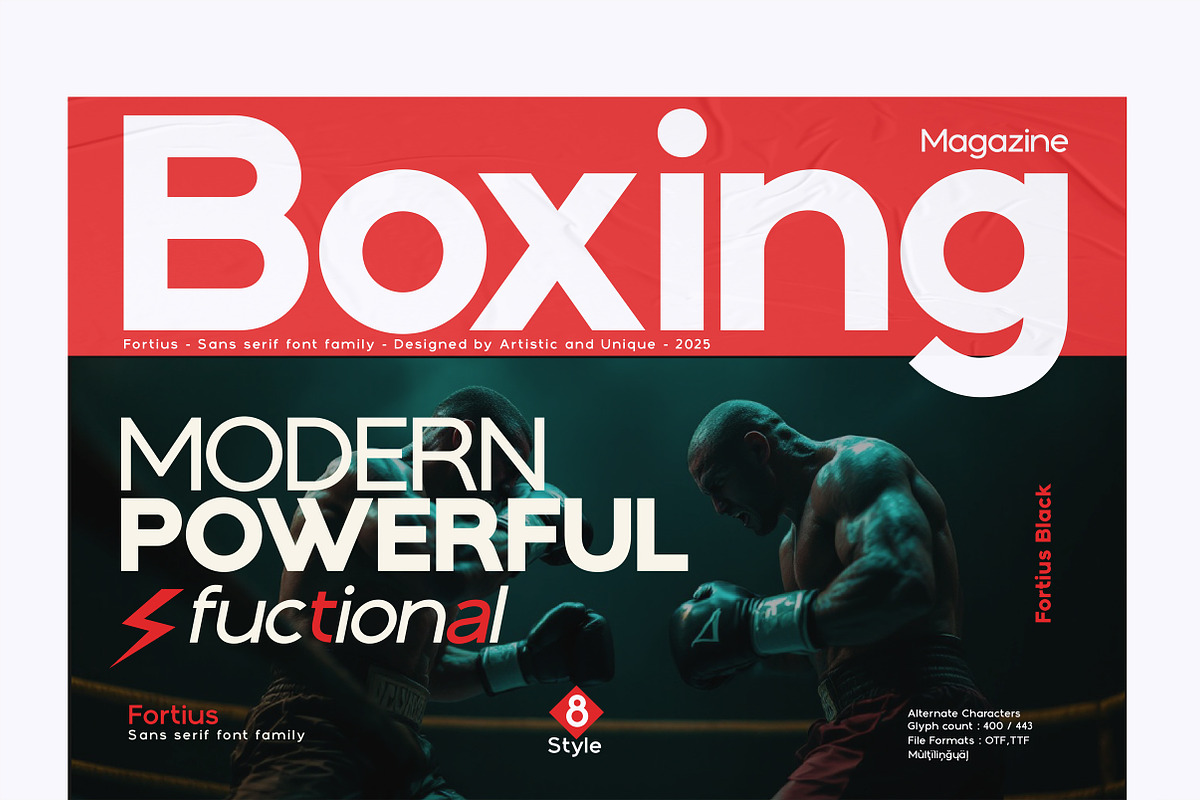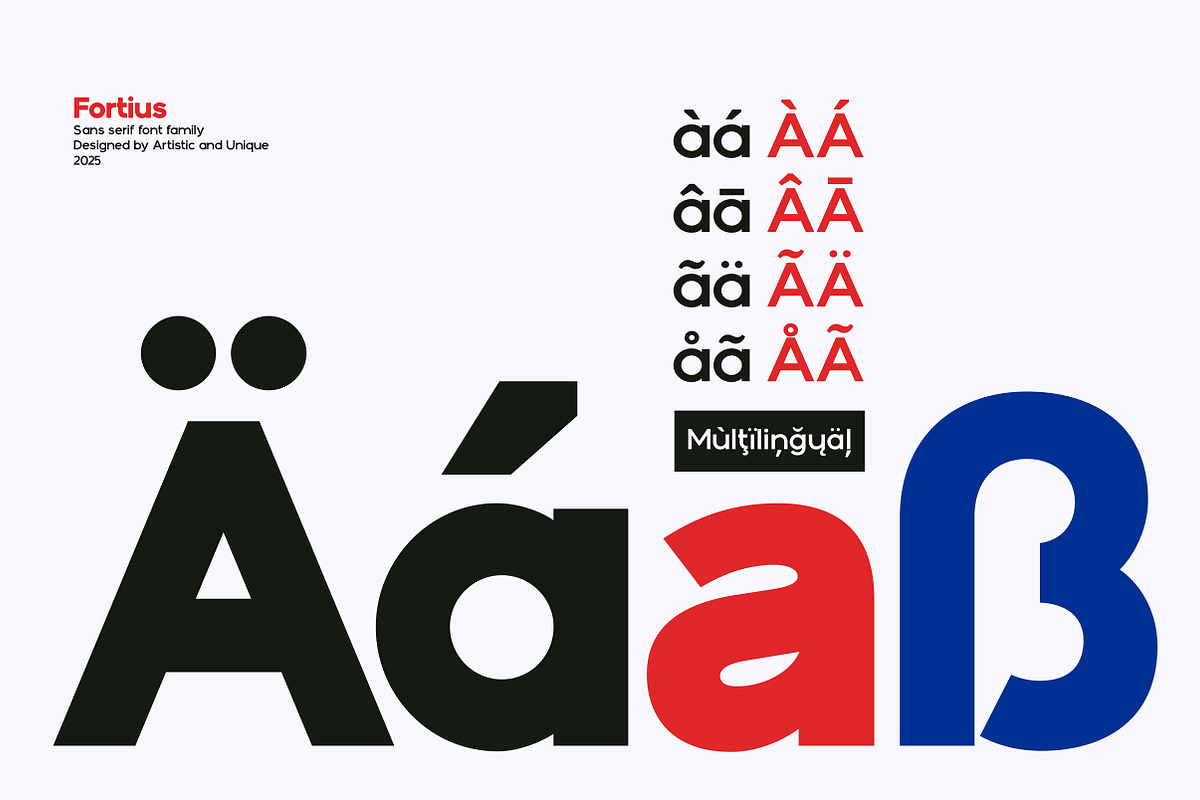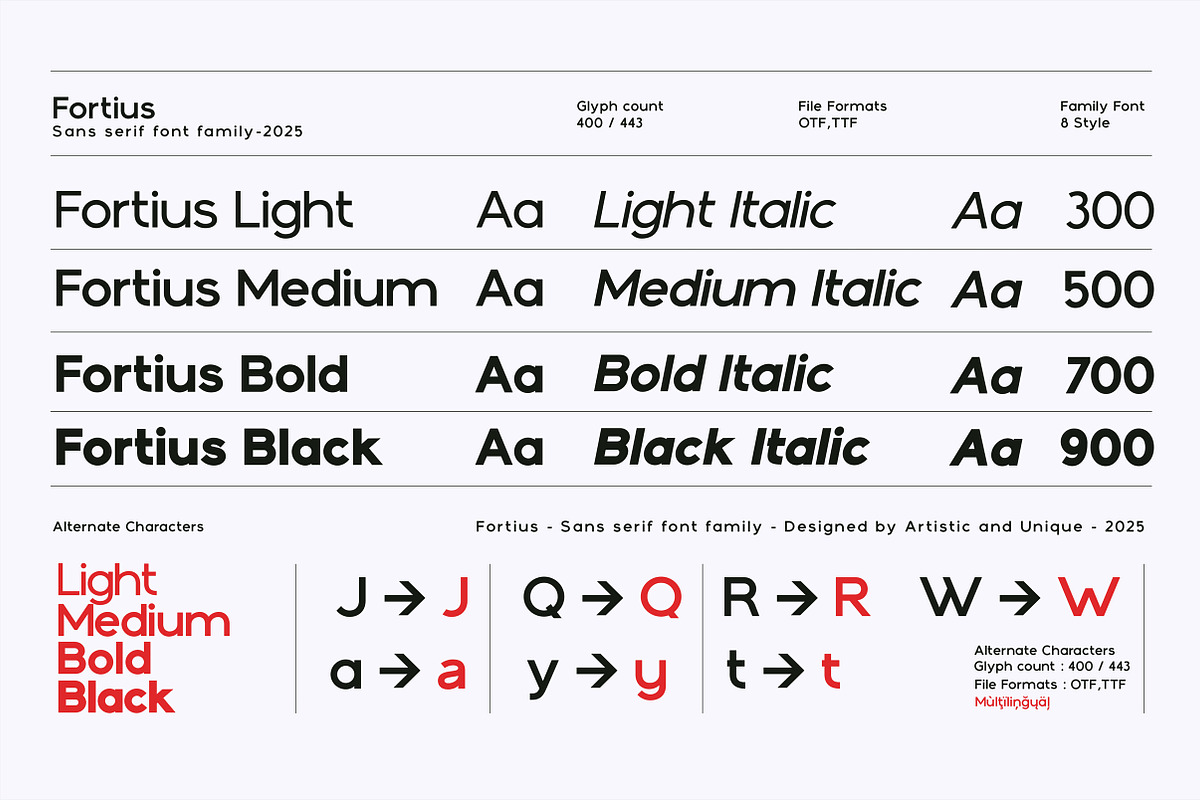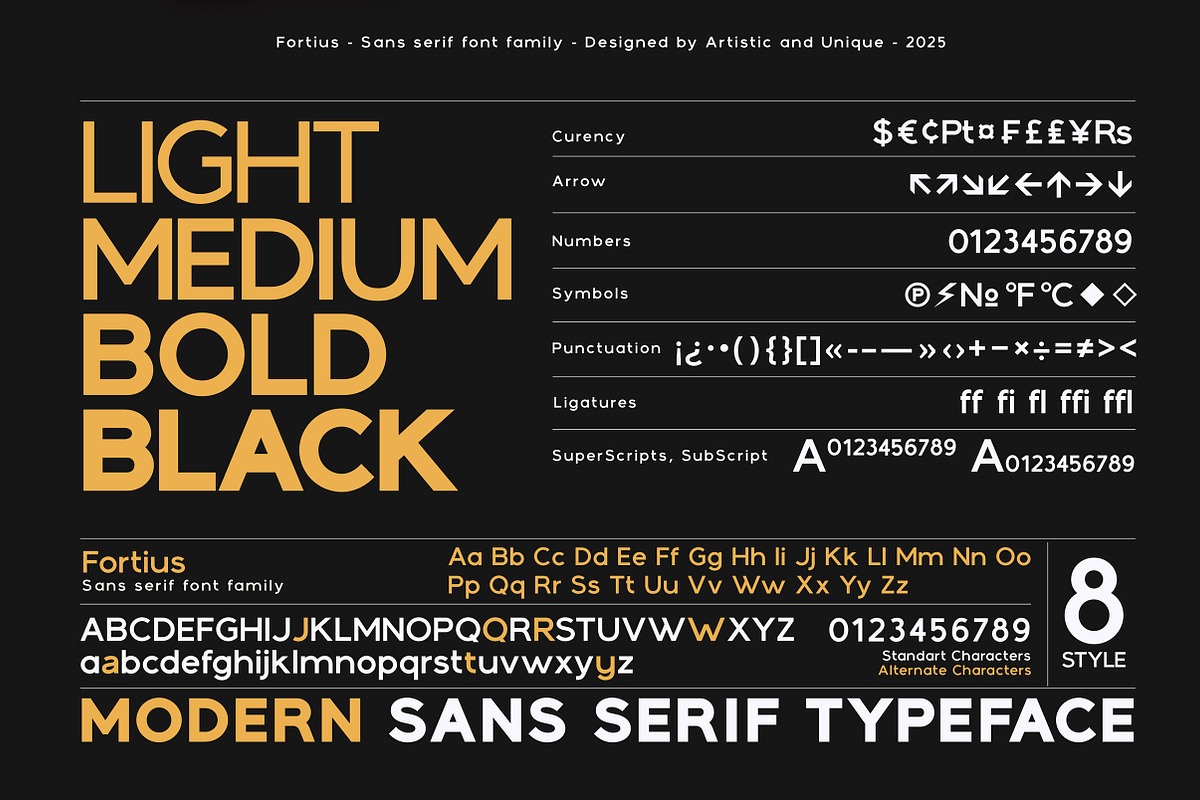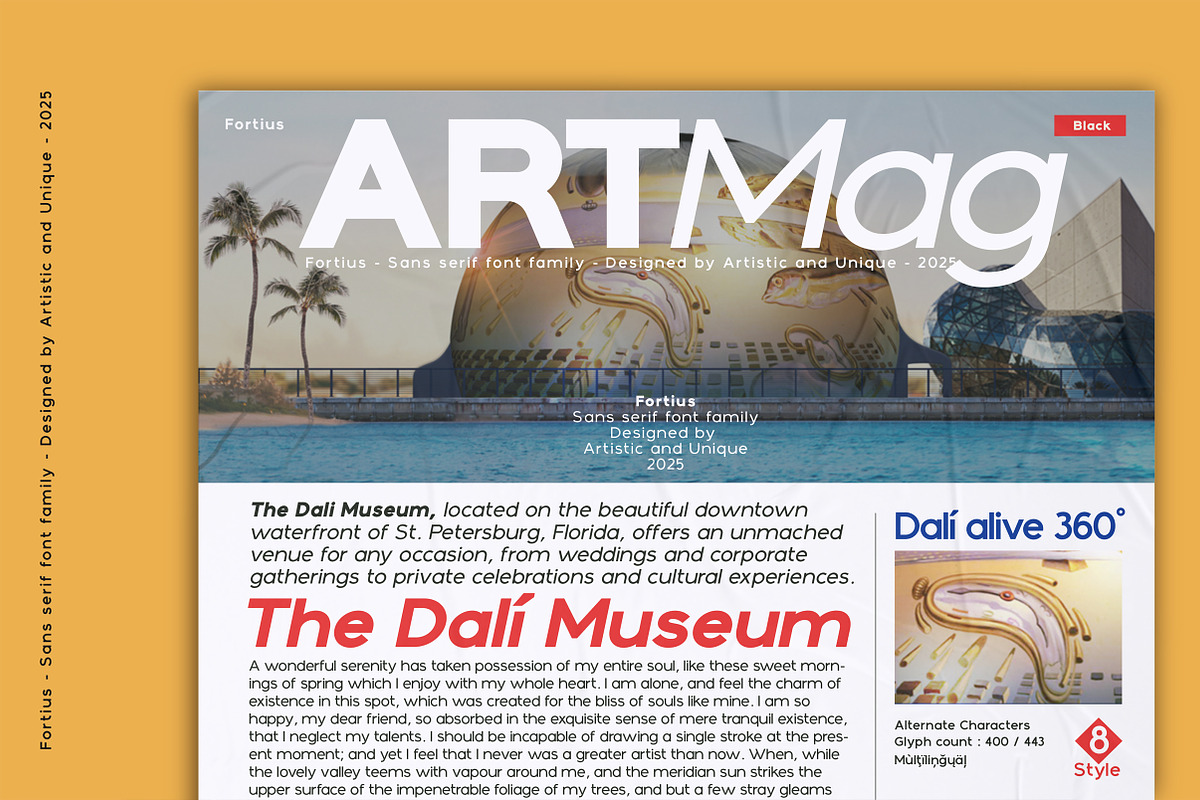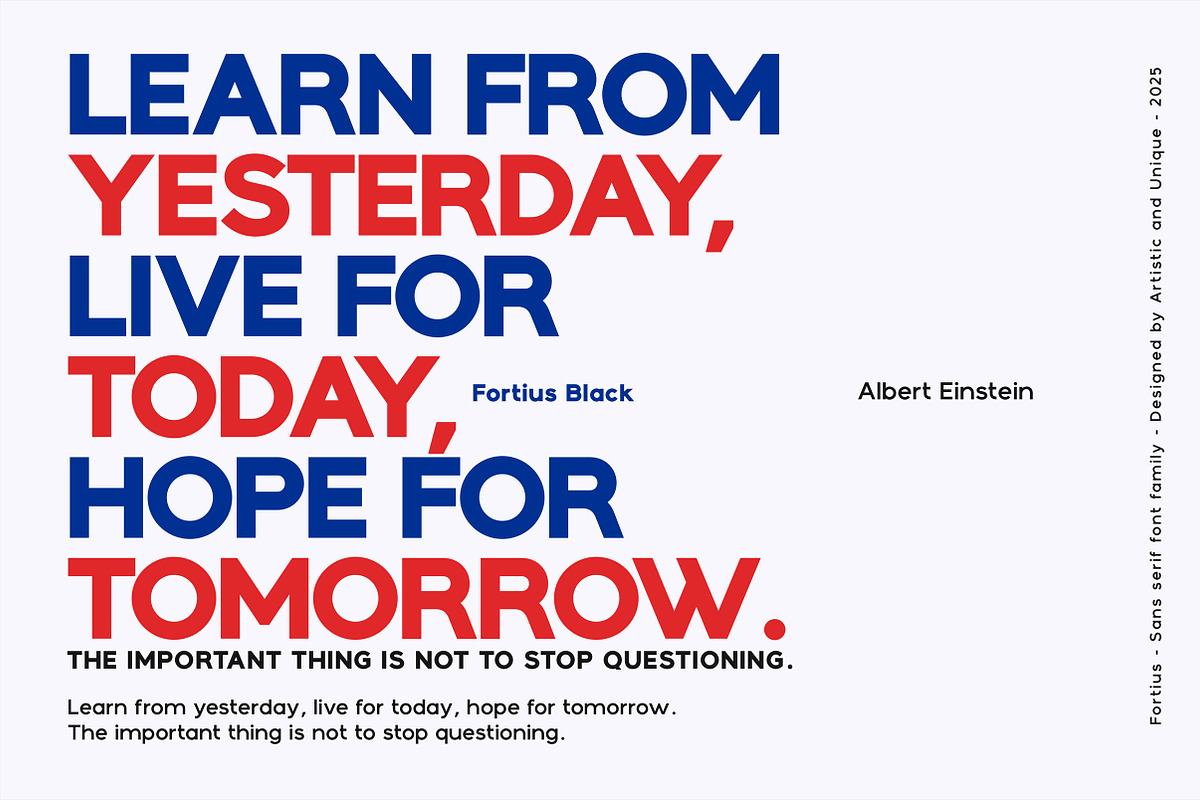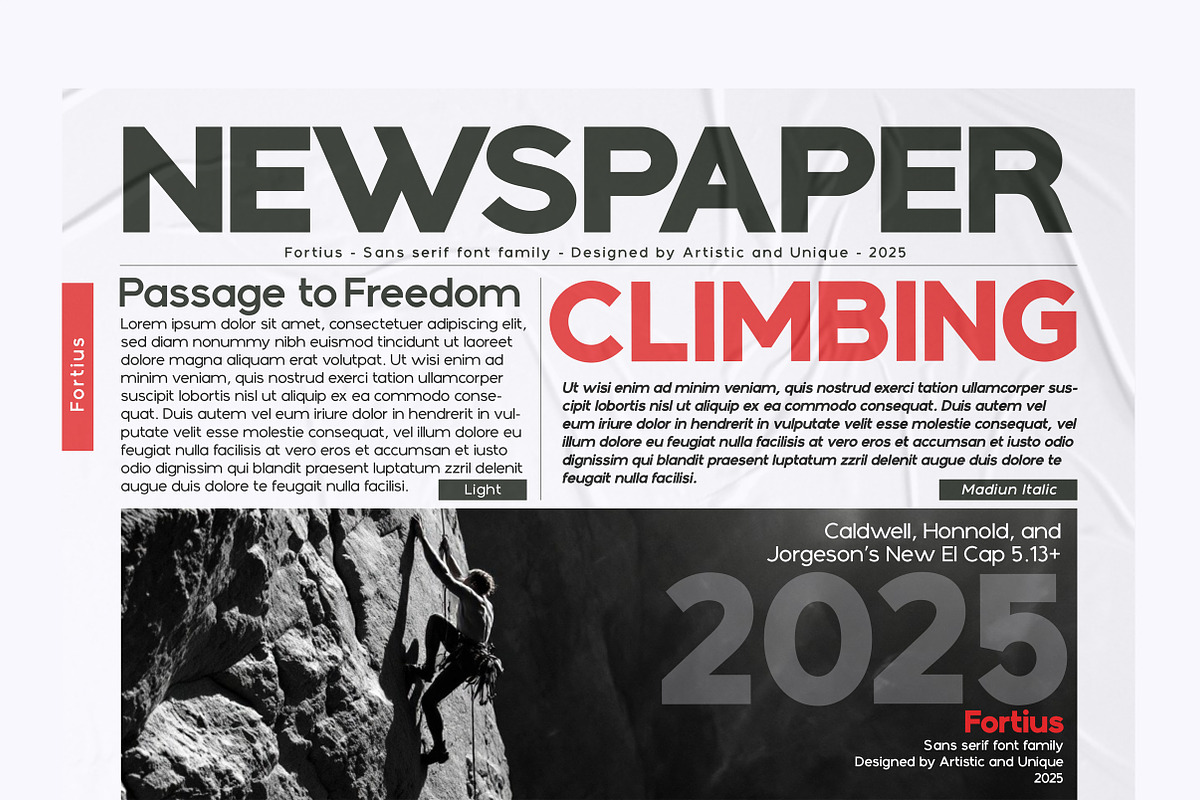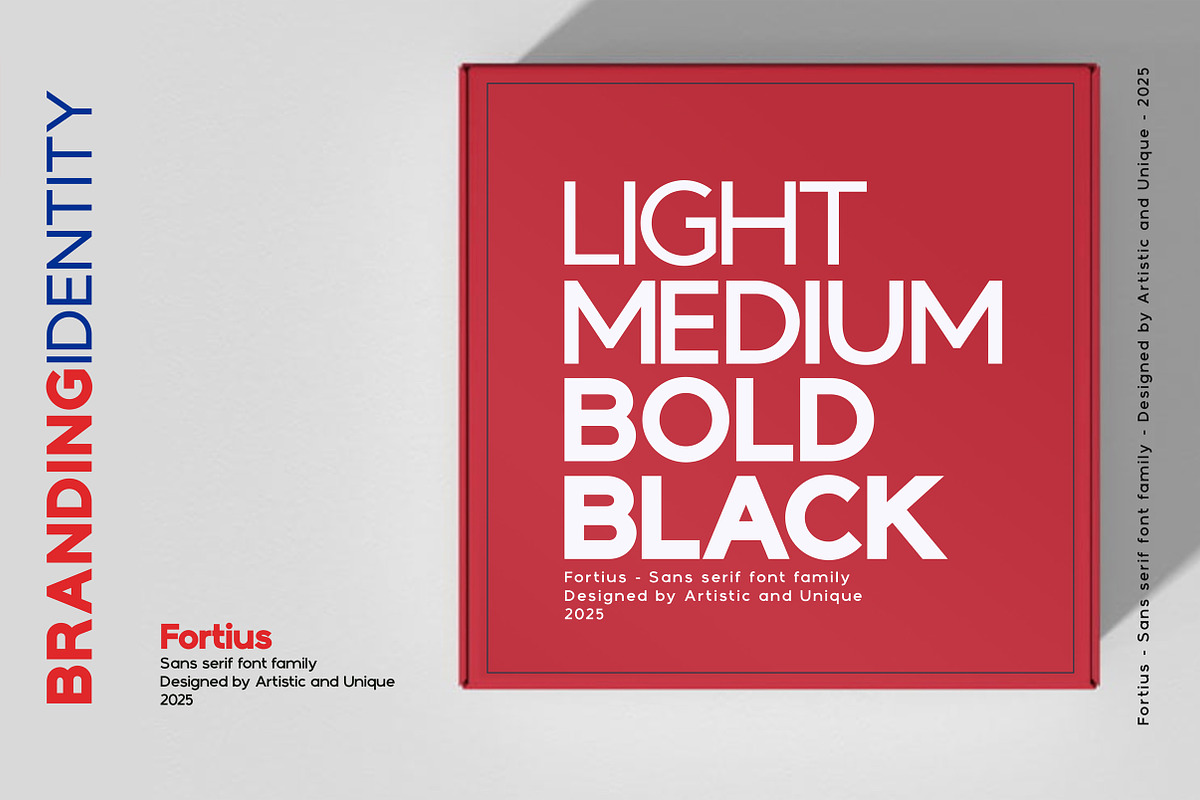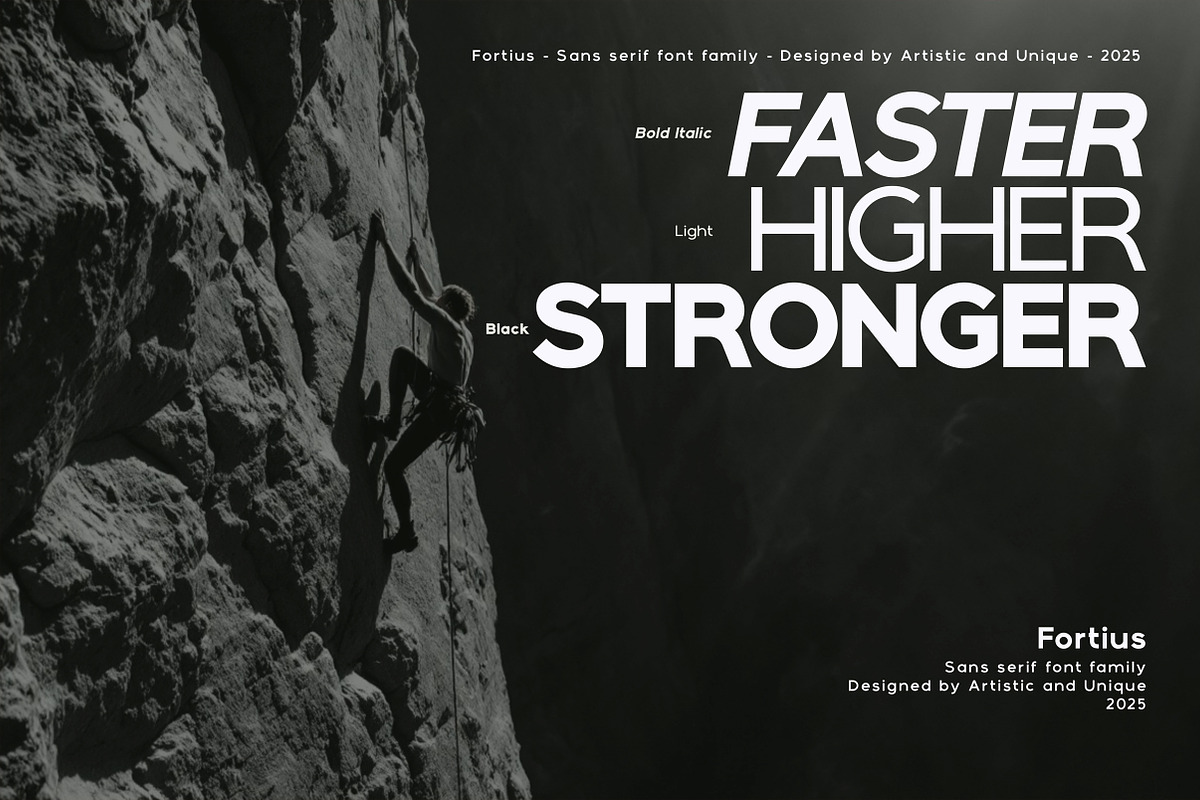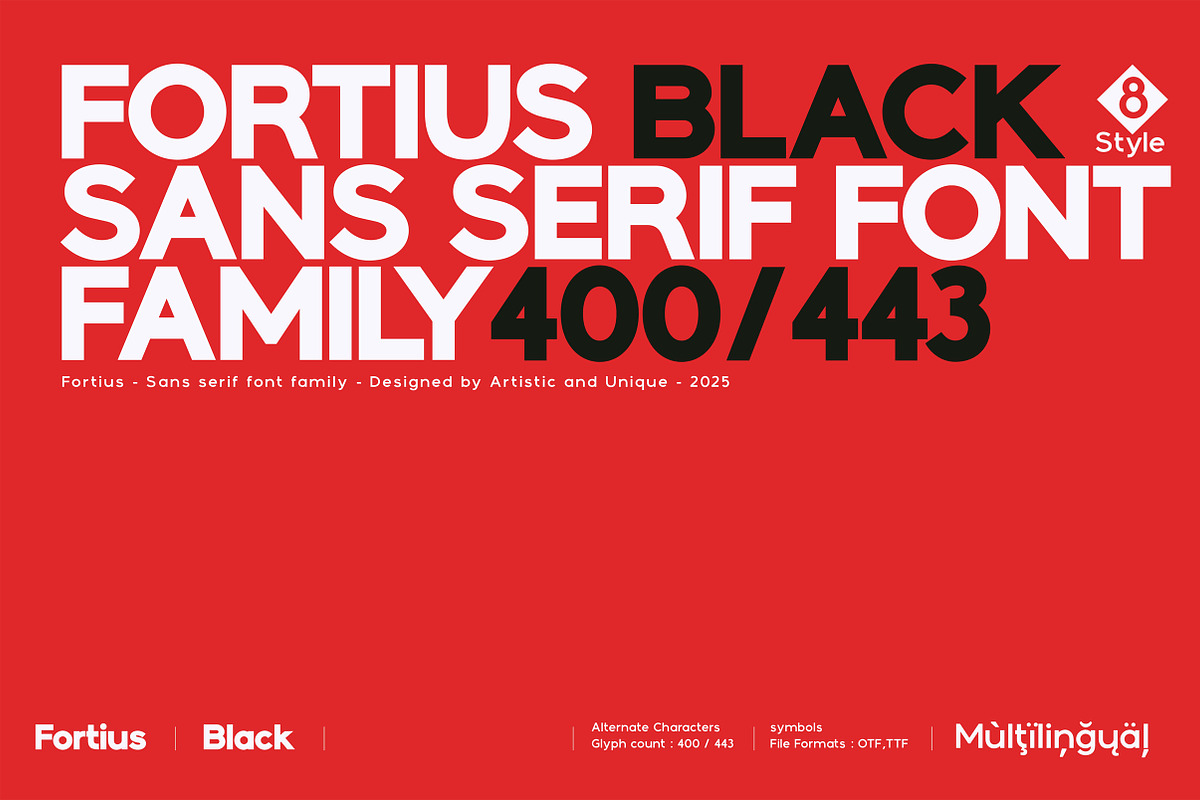
Fortius - Sans serif font family
Fortius - Sans serif font family - 8 Style - Multilingual supports.
With its clean structure and modern appeal, Fortius is proving to be indispensable for those looking for a sans serif font that enhances their branding efforts. Its adaptability means you can effortlessly integrate it into projects ranging from digital platforms to print.
For designers looking for elegance with versatility, the Fortius Sans Serif font family offers a wealth of options. With eight different styles and resolute readability, this font excels in contemporary creative projects.
The family ranges from delicate light the bold and black weights, making it suitable for a variety of design needs. Its multilingual support and modern design add to its timeless appeal. Lighter styles suit sophisticated projects, while thicker weights stand out in headlines.
- Extensive Character Set - Includes uppercase, lowercase, punctuation, symbols, and numbers.
- Extended Design Flexibility - Offers multiple weights and styles.
- Multilingual Support - Perfect to global projects.
Ideal for books, magazines, newspapers, editorials, headlines, websites, logos, branding, and more, the forties font family offers a harmonious blend of modern and classic aesthetics, allowing you to easily create unique designs.
With this font you can create your unique designs.